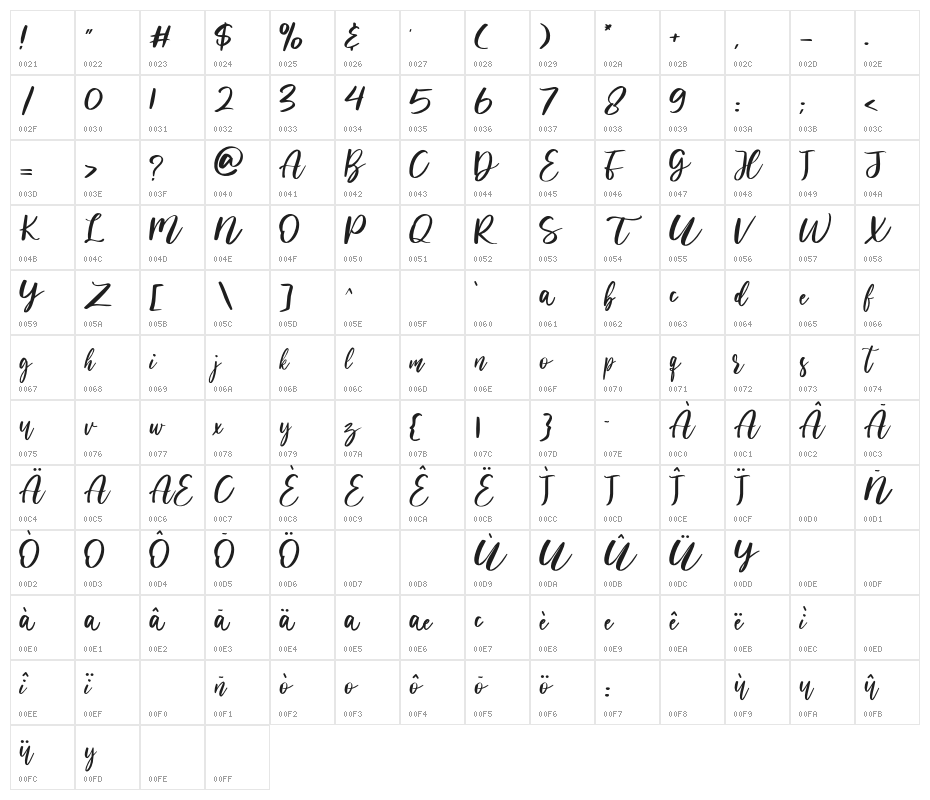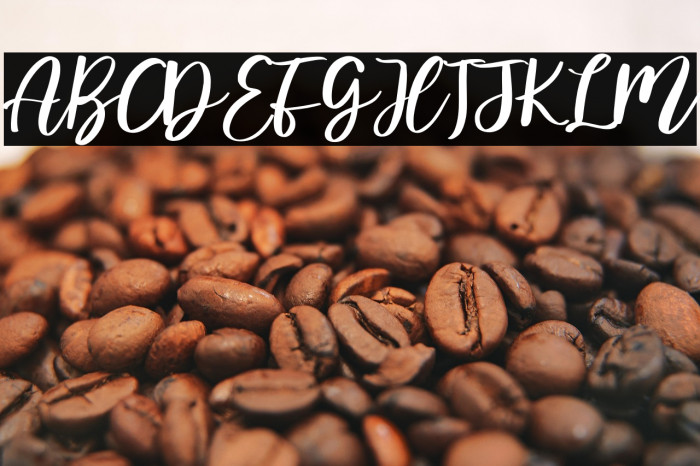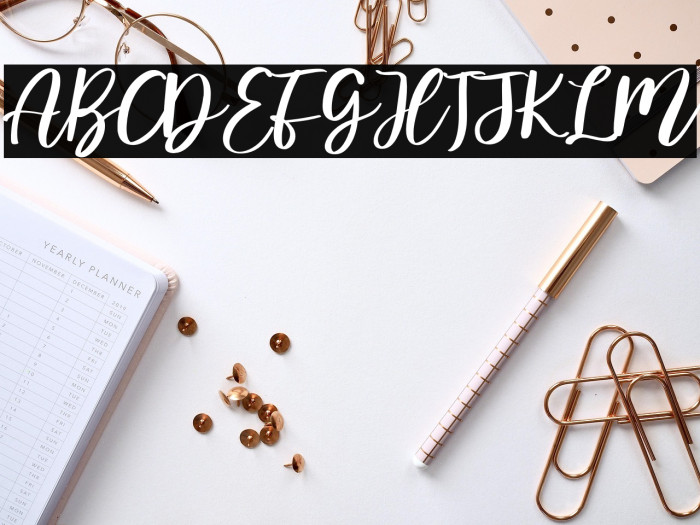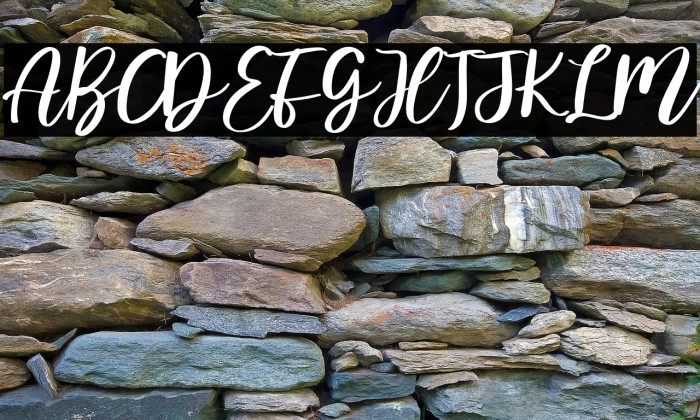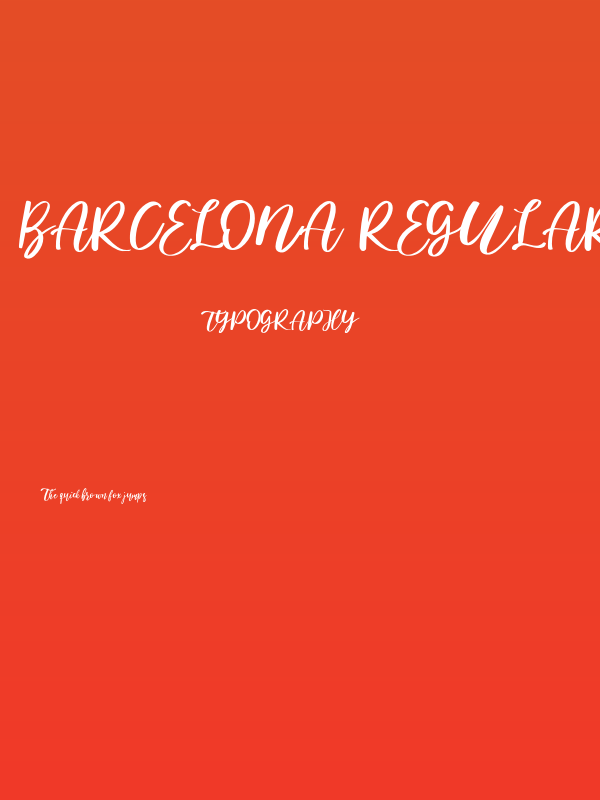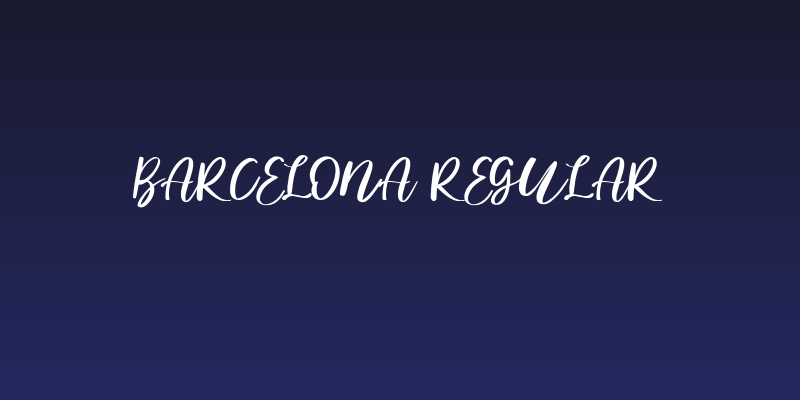
barcelona Regular Font
barcelona Regular Description
This font features a lively and expressive script style with flowing, cursive letterforms. The uppercase letters are bold and dynamic, with sweeping strokes that convey a sense of movement and elegance. The lowercase letters maintain a consistent fluidity, enhancing the overall cohesive appearance. Numbers and special characters are designed with the same attention to detail, ensuring versatility across various applications. The font's playful yet sophisticated nature makes it suitable for creative projects that require a personal touch.